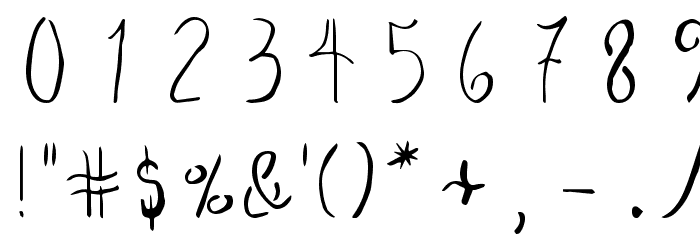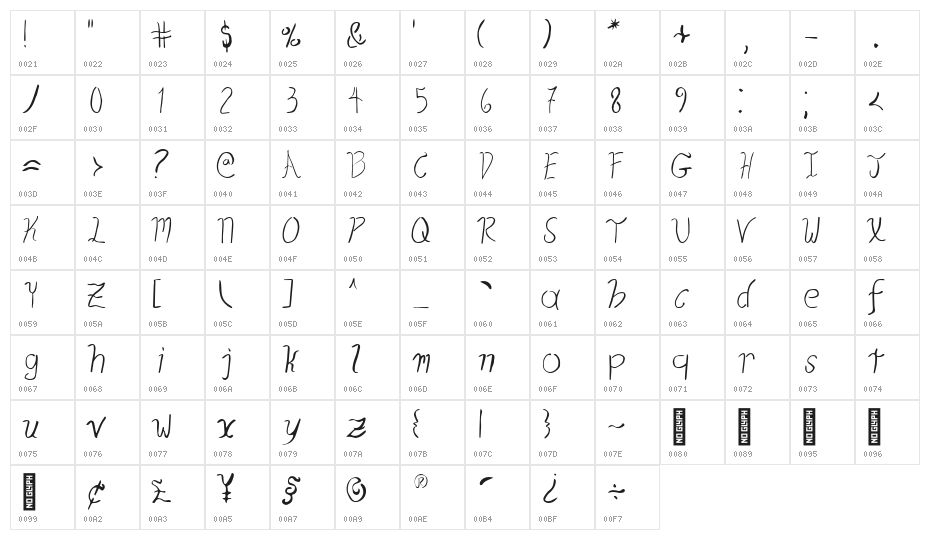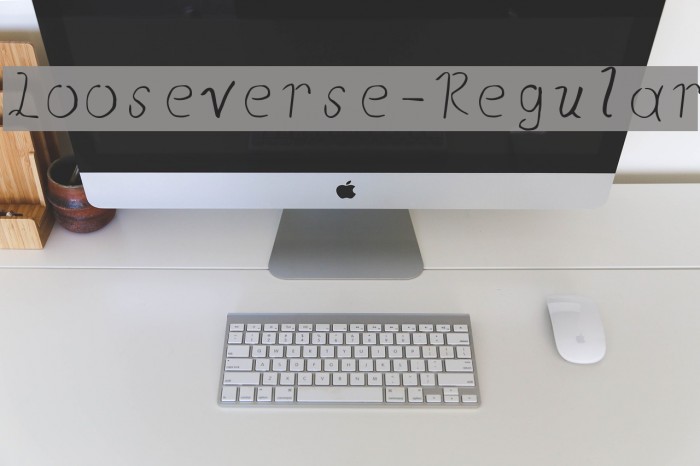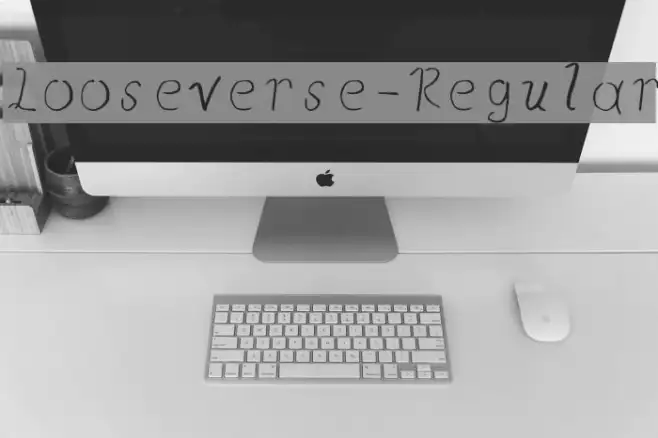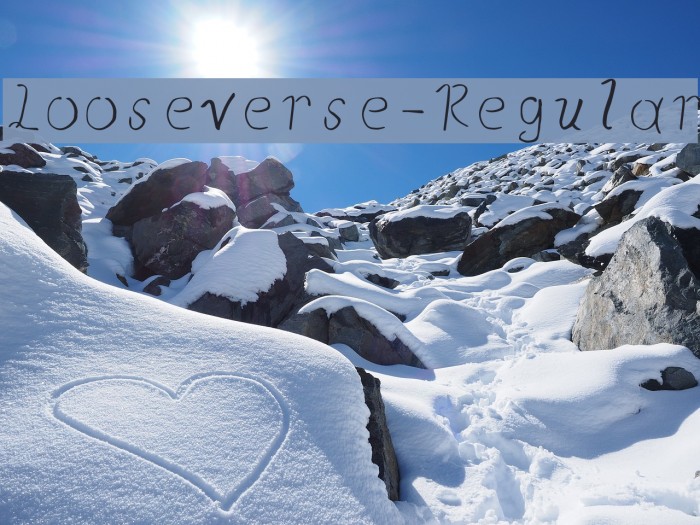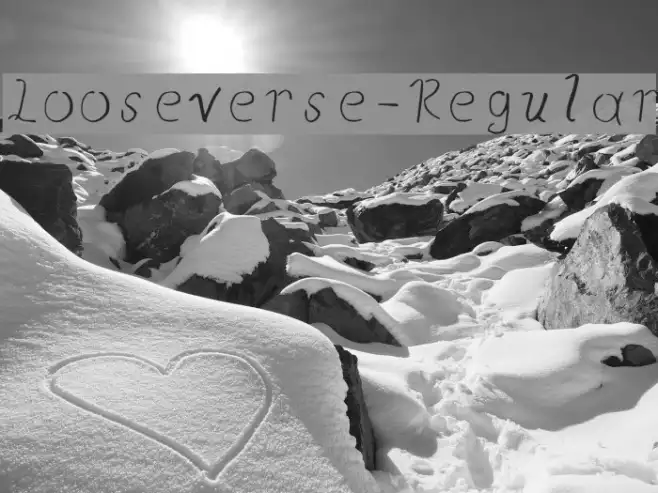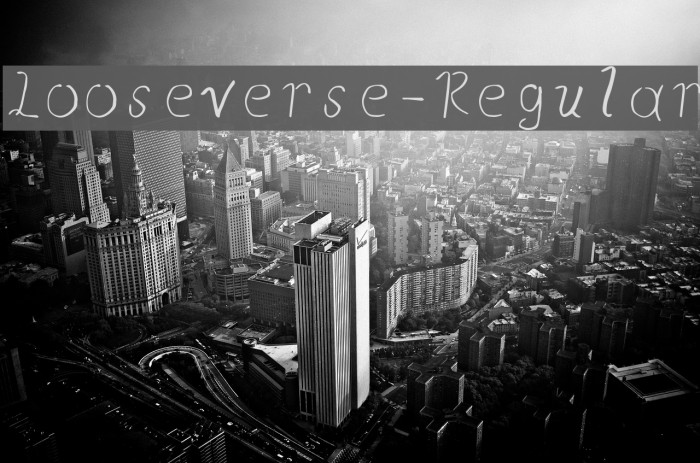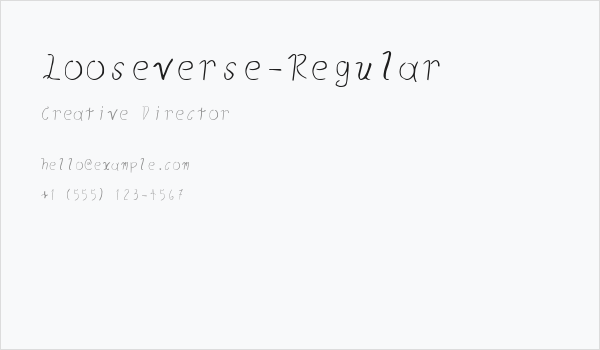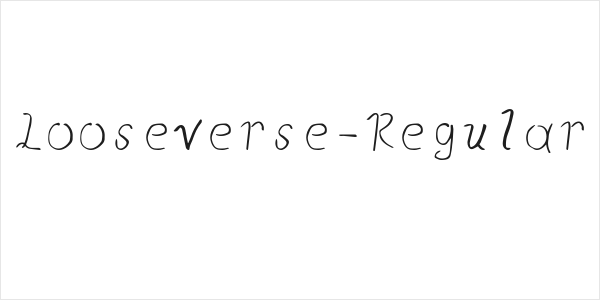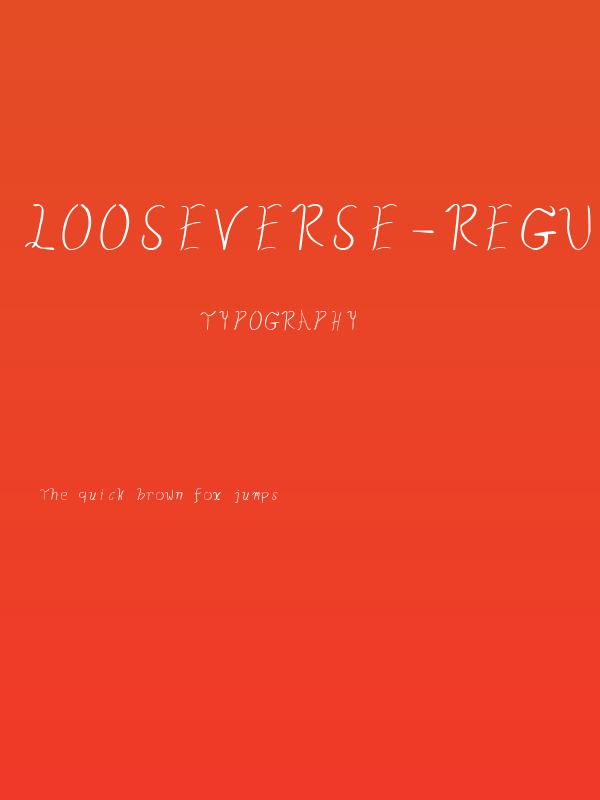
Looseverse-Regular Font
Looseverse-Regular Description
This font features a whimsical and fluid design, characterized by its handwritten style that exudes a sense of casual elegance. The letters are slightly slanted, with varying stroke thickness that adds a dynamic and lively feel. The uppercase letters are distinct yet harmonize well with the lowercase, maintaining a consistent flow throughout. The numerals and special characters complement the alphabet with their playful curves and unique flair. This font's organic and free-spirited appearance makes it suitable for creative and informal applications.
| Proposed Projects | Ideal for greeting cards, invitations, personal branding, and creative projects that require a touch of personality and charm. |